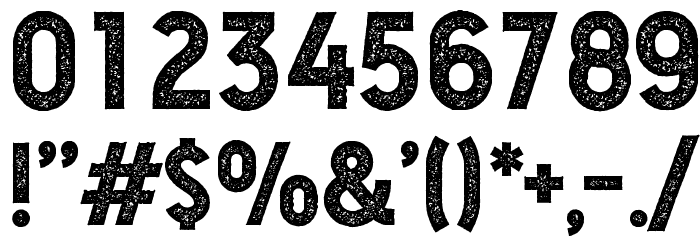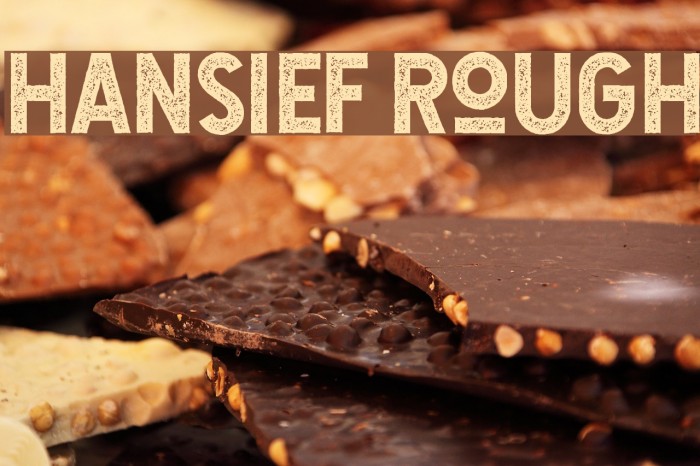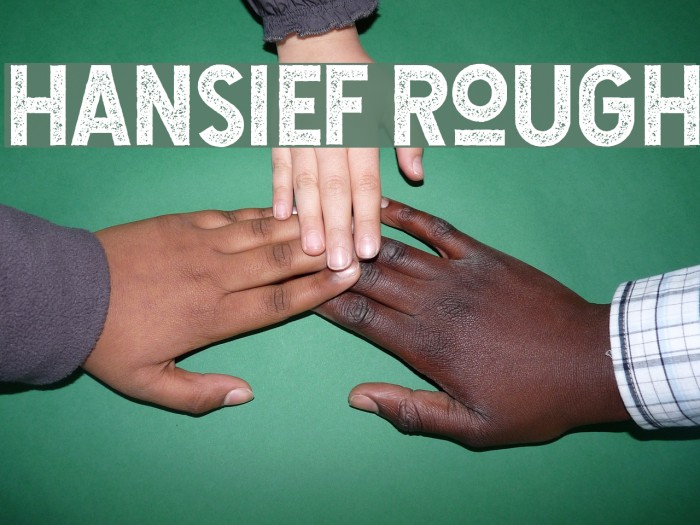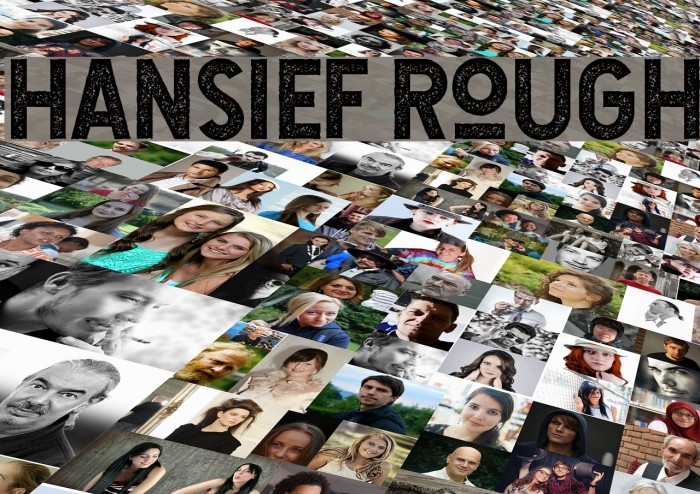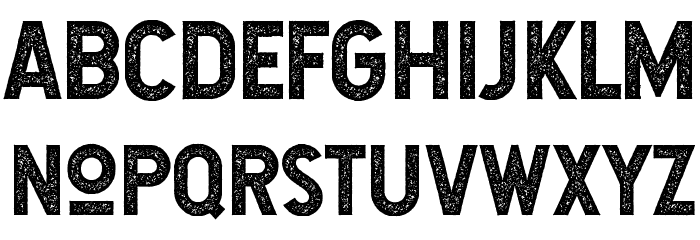
Hansief Rough Font
Hansief Rough Description
This font features a bold, rough texture that gives it a distressed and vintage appearance. The characters are uppercase with a uniform thickness, creating a strong and impactful presence. The rough texture adds a unique, handcrafted feel, making it ideal for projects that require a rustic or industrial aesthetic. The numbers and special characters maintain the same bold and textured style, ensuring consistency across all elements. This font's distinctive look is perfect for creating eye-catching headlines, posters, and branding materials that need to stand out.
A bold, rough-textured font with a vintage, handcrafted feel from Uncategorized fonts.
- Proposed Projects: Ideal for posters, branding, headlines, and any project needing a rustic or industrial touch.
- Overall Style: Vintage